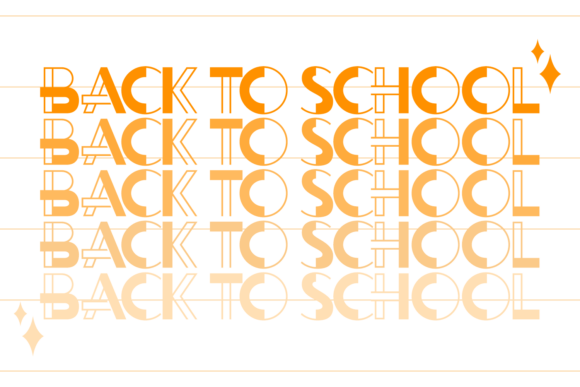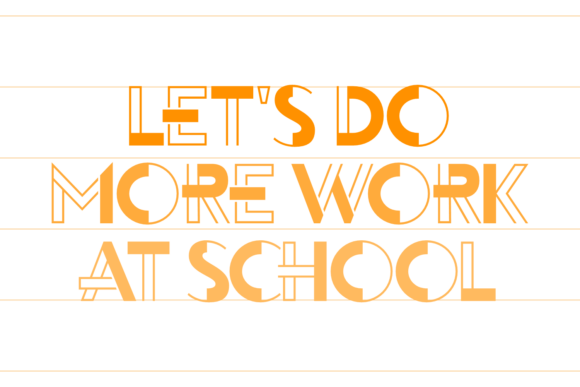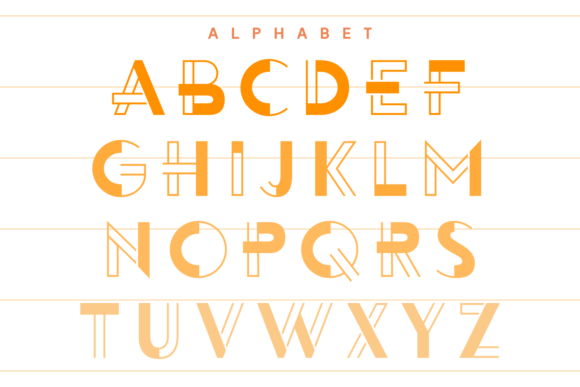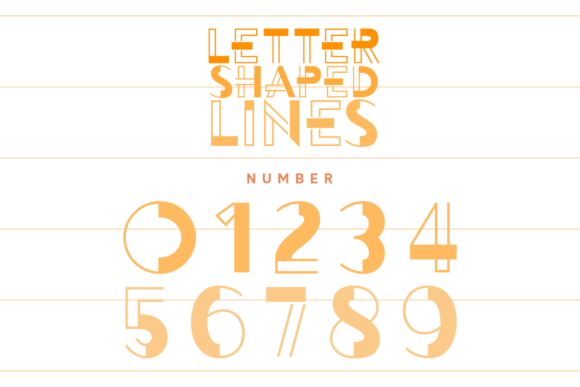
Introduction to Letter Shaped Lines Font
Have you ever found yourself stuck in a creative rut, searching for the perfect font to elevate your design project? I know I have. One day, while browsing through a design resource library, I stumbled upon the Letter Shaped Lines Font – and it was love at first sight. The geometric letterforms and delicate outlines of this font immediately caught my attention, and I knew I had to dive deeper.
As a designer, I can appreciate the value of a high-quality font that can add a unique touch to any creative project. The Letter Shaped Lines Font is more than just a pretty face – its modular aesthetic and heavy visual weight make it an exceptional choice for a variety of design applications, from tech-focused branding to bold social media graphics.
Whether you’re looking to create a striking editorial header or a modern workshop sign, this font is sure to deliver. With its transparent background and free download option, you can easily integrate it into your next design project. In this article, we’ll take a closer look at the Letter Shaped Lines Font and explore its many uses and benefits.
Key Features of Letter Shaped Lines Font
- Unique design: This font features letter-shaped lines, creating a visually appealing and creative design element.
- High quality: The font is designed with high resolution, making it suitable for various design projects.
- Transparent background: This font can be used with a transparent background, allowing for seamless integration with various design elements.
- Size and resolution: The font comes in a single size, making it easy to use and customize for various design projects.
- Perfect for creative projects: The unique design and high quality of the font make it an ideal choice for creative projects, such as logos, graphics, and typography-based designs.
Honest Review: Letter Shaped Lines Font
I recently had the chance to try out the Letter Shaped Lines Font, and I must say it’s been a great addition to my design resource collection. The font is available for free download, which is a huge plus for designers on a budget.
What works well: ✨ The font’s unique design is perfect for creative projects that require a touch of sophistication and elegance. The transparent background feature allows for seamless integration with other design elements, making it a great choice for designers who value high quality and versatility.
- Unique and elegant design
- High quality and versatile
Limitations: ⚠️ While the font is great for many projects, I found it to be a bit limited in its use for text-heavy content. The letter shapes can sometimes make it difficult to read, especially in smaller font sizes.
Overall, I’m really impressed with the Letter Shaped Lines Font. It’s a great design resource for creative projects, and its unique features make it stand out from other fonts in my collection.
Letter Shaped Lines Font
Design Tips
To get the most out of Letter Shaped Lines Font, consider the following tips:
1. Use a transparent background to create a high-quality design.
2. Experiment with different font sizes and colors to create a unique design.
3. Use the font in conjunction with other design resources to create a cohesive look.
Letter Shaped Lines Font is a versatile design resource that can be used in a variety of creative projects, including:
1. Graphic design.
2. Digital art.
3. Print design.
4. Web design.